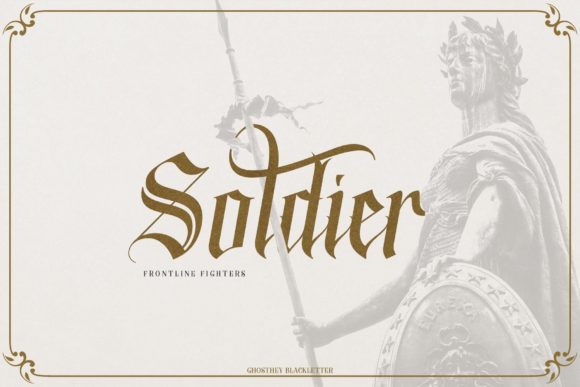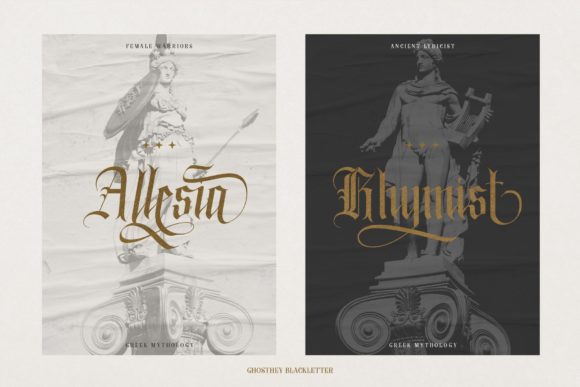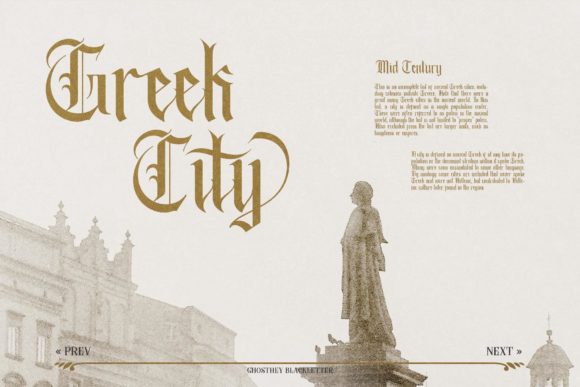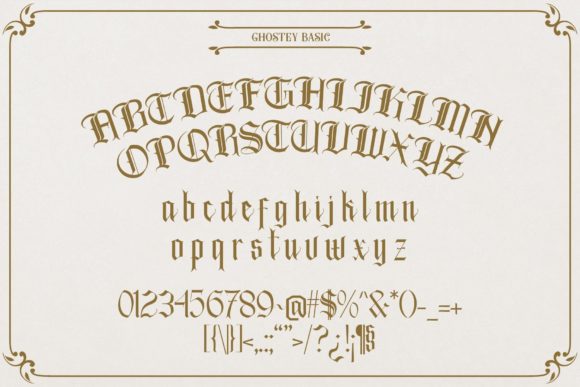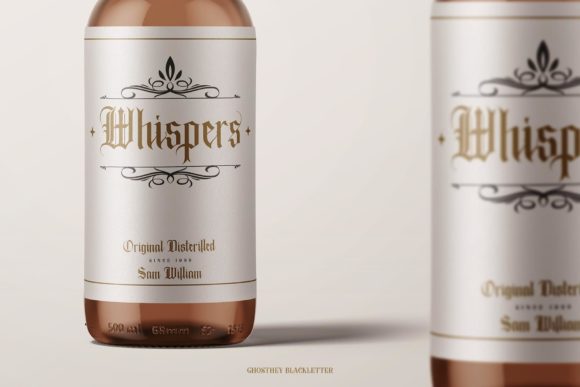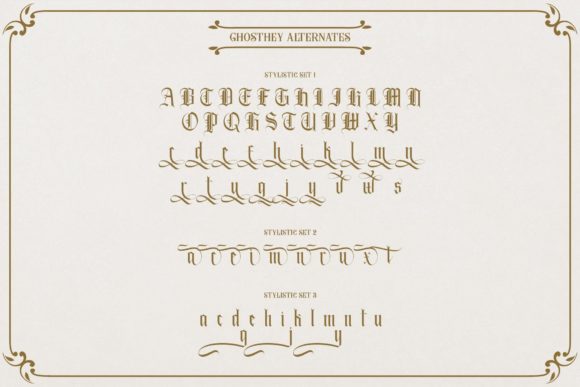
Unveiling the Elegance of Ghosthey Font: A Comprehensive Guide
In the realm of typography, blackletter fonts have always held a special place for their intricate designs and historic significance. Among these, the Ghosthey Font stands out as a masterpiece, offering a blend of high detail and beauty that can elevate any design project. In this article, we’ll dive deep into the features, benefits, and uses of the Ghosthey Font, exploring why it has become a favorite among designers and crafters alike.
What is Ghosthey Font?
Ghosthey is a highly detailed and beautiful blackletter font, meticulously crafted to bring an air of elegance and sophistication to any design. Its intricate strokes and beautiful swashes are not just visually appealing but also rich in character, making it perfect for projects that demand a touch of classic luxury.
One of the standout features of the Ghosthey Font is its PUA (Private Use Area) encoding. This means that users can access all the glyphs and swashes with ease, offering unparalleled flexibility in design. PUA encoding allows for the inclusion of additional characters and symbols beyond the standard Unicode range, making Ghosthey incredibly versatile for various design applications, from elegant invitations and quotations to complex branding and advertising materials.
Features of Ghosthey Font
- Highly Detailed Design: Ghosthey boasts an intricate design that captures the essence of traditional blackletter typography while offering a fresh, modern twist.
- PUA Encoded: Enjoy easy access to all glyphs, swashes, and alternates, making design work more efficient and creative.
- Versatility: Suitable for a wide range of projects including but not limited to, logos, branding, invitations, posters, and packaging.
- Elegance and Sophistication: Adds an air of luxury and refinement to any design, making it perfect for high-end projects.
Ghosthey Font offers numerous benefits for designers and crafters, making it a valuable addition to their toolkit:
- Enhanced Creativity: The variety of glyphs and swashes available in Ghosthey encourages experimentation and creativity, allowing designers to produce unique and captivating work.
- Professional Results: The elegant and detailed nature of Ghosthey ensures that designs look professional and polished, which is crucial for client work or personal projects.
- Wide Application: From digital platforms to print materials, Ghosthey’s versatility ensures it can be used across various mediums and projects.
Using Ghosthey Font in Your Projects
- Experiment with Swashes: Use the swashes and glyphs to add flair to your text and make it more visually appealing.
Ghosthey Font is a remarkable addition to the world of typography, offering designers and crafters a tool that combines beauty, detail, and versatility. Its PUA encoding makes it incredibly user-friendly, allowing for a seamless design experience. Whether you’re working on a branding project, creating elegant invitations, or experimenting with typography for personal enjoyment, Ghosthey provides the means to produce work that stands out. Embrace the elegance and sophistication of Ghosthey Font in your next project and experience the difference it can make.